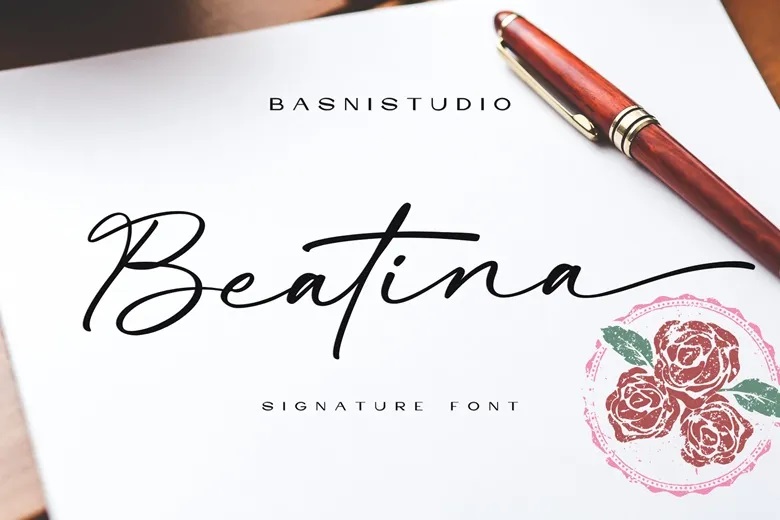
Beatina Font
Beatina is a signature font known for its elegance. It blends a polished, professional look with a warm, personal feel. The design captures the smooth, flowing lines of a fountain pen on fresh paper. Its tall loops, bold t-bars, and long, graceful swashes give it a modern and sophisticated style. Beatina keeps its sharp edges whether used in simple designs, lifestyle photos, or on textured paper.
Its smooth cursive style adds a personal touch that makes any layout feel special. It works well for business cards, luxury cosmetics, wedding invitations, photography watermarks, blog signatures, and premium product packaging.
Beatina Signature Script  Font